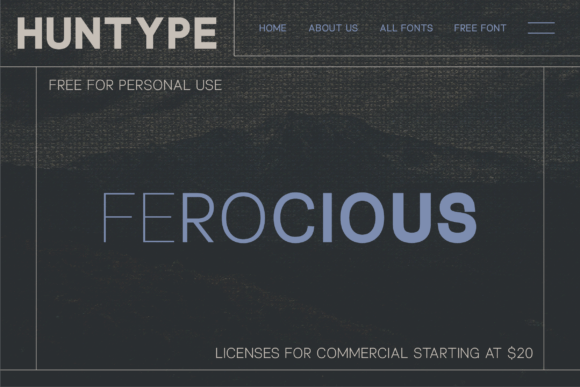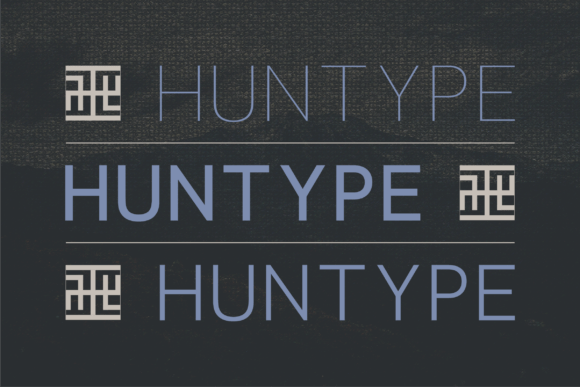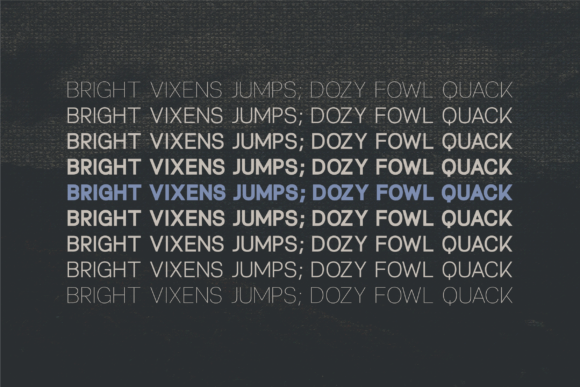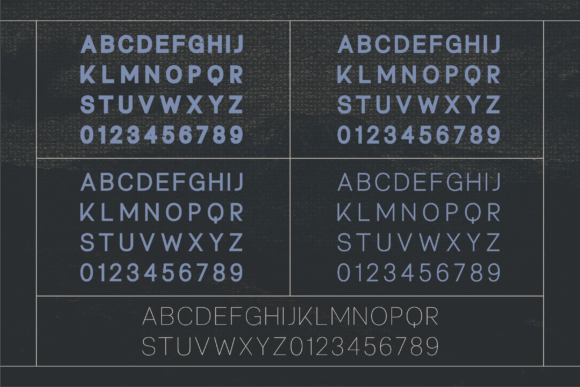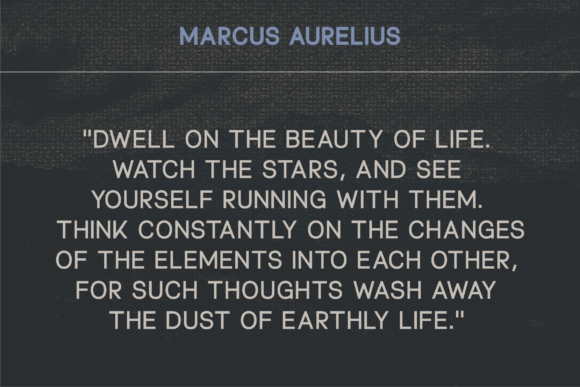
Introducing Ferocious Font: A Modern and Versatile Typeface for Every Design Need
In the world of typography, a font can make all the difference in the effectiveness and aesthetic appeal of a design. For designers and crafters looking for a typeface that embodies both modernity and sophistication, Ferocious Font is an exceptional choice. This comprehensive font family combines clean geometric forms with a subtle elegance, making it an invaluable asset for a wide range of design projects.
The Essence of Ferocious Font
Ferocious Font is characterized by its precise letterforms and a contemporary aesthetic that strikes a perfect balance between sharp lines and gentle curves. This blend of geometric cleanliness and subtle sophistication results in a versatile style that can adapt to various design needs. Whether you’re working on a sleek corporate brand identity, a creative editorial project, or a compelling digital interface, Ferocious Font offers the flexibility and impact required to elevate your designs.
A Family of Five: Versatility at Its Best
One of the standout features of Ferocious Font is its comprehensive family, which includes five distinct weights: Thin, Light, Regular, Bold, and Black. This range allows designers to choose the perfect weight for their specific project needs, ensuring that their typography is always impactful, refined, and appropriately styled.
- Ferocious Black: For those moments when you need a bold and impactful statement, Ferocious Black is the go-to choice. Its commanding presence makes it ideal for headlines that demand attention.
- Ferocious Bold: When your design requires a strong and persuasive voice, Ferocious Bold steps up. It’s perfect for key messages that need to stand out without overpowering the rest of the content.
- Ferocious Regular: As the mid-weight of the family, Ferocious Regular offers a balanced and versatile option. It’s suitable for a diverse range of applications, from body text to captions, providing a harmonious flow to your designs.
- Ferocious Light: For designs that call for subtlety and elegance, Ferocious Light brings a refined touch. Its gentle appearance makes it perfect for projects where a minimalist approach is desired, without sacrificing readability or sophistication.
- Ferocious Thin: When a delicate and sophisticated look is needed, Ferocious Thin is the perfect choice. It adds a minimalist touch to designs, ideal for projects that require a subtle yet impactful typographic solution.
Design and Crafting Applications
Ferocious Font’s adaptability and range make it suitable for a multitude of design and crafting applications. Here are a few areas where Ferocious Font truly shines:
- Branding and Logotypes: The clean and modern aesthetic of Ferocious Font makes it an excellent choice for creating brand identities that need to convey professionalism and sophistication.
- Editorial Design: For editorial projects such as magazines, newspapers, and digital publications, Ferocious Font offers the versatility to create engaging headlines and readable body text.
- Digital Interfaces: The legibility and adaptability of Ferocious Font make it highly suitable for UI/UX design, ensuring that digital interfaces are both functional and aesthetically pleasing.
- Packaging and Advertising: Whether you’re designing product packaging or creating advertising materials, Ferocious Font’s range of weights provides the tools to craft compelling and effective typography.
Ferocious Font stands out as a modern and versatile typeface, designed to meet the diverse needs of designers and crafters. Its blend of clean geometric forms, subtle sophistication, and comprehensive family of five weights makes it an invaluable asset for any design project. Whether you’re aiming for bold statements, subtle elegance, or anything in between, Ferocious Font provides the tools to bring your creative visions to life. Explore the possibilities of Ferocious Font today and discover how it can elevate your designs to new heights.